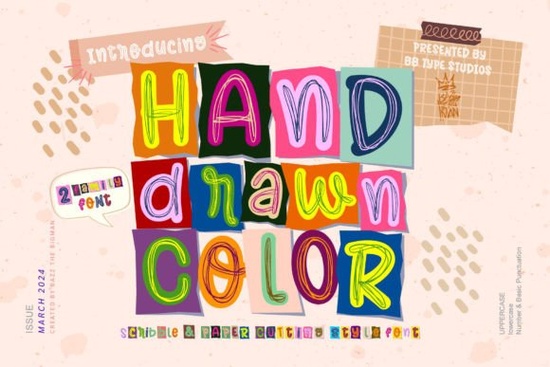
If you need a typeface that instantly adds energy without complex tools, the Hand Drawn Color Font delivers exactly that. This two-color family pairs a sketch-like base layer with a vibrant secondary outline, giving every letter a lively marker-on-paper feel. Whether you design kids’ activity sheets, party invitations, or digital bundles, this font cuts through visual clutter while staying approachable. The double-layer effect works best at headline sizes, where stroke spacing remains clear.
What makes this typeface different from standard decorative options?
Most playful fonts rely on uniform curves or thick outlines, but this design embraces intentional imperfections. Stroke widths vary naturally, mimicking how a marker moves across paper. That organic rhythm stops repeated letters from feeling tiled. The outer color sits just beyond the main shape, reading as a soft highlight instead of a harsh border. Swap color pairings in your editor to match seasonal themes. Crafters pair pastel defaults with watercolor backgrounds, while POD sellers test high-contrast combos for clear readability on apparel tags.
Which project types actually benefit from this layout?
Education materials top the list because informal shapes feel welcoming. Teachers use it for flashcards and class schedules where encouragement matters. Party planners grab it for banners and cupcake toppers, especially for circus or explorer themes. Digital sellers bundle it with matching doodle frames for instant storefront value. Shop owners sell custom mugs faster when pairing it with simple line art to maintain a consistent handmade aesthetic.
Can I mix this style with other decorative typefaces?
Combining fonts is routine, but balancing visual weight matters more than matching trends. Since this typeface carries noticeable sketch texture, it pairs cleanly with geometric sans-serifs or straightforward serifs. The contrast stops competing while letting both families share a creative direction. Holiday promotions often blend it with metallic overlays, so reviewing Gold Glitter Font provides shine accents for greeting cards. Seasonal events sometimes require themed adjustments, which is why designers reference Fourth July Font when patriotic layouts take priority.